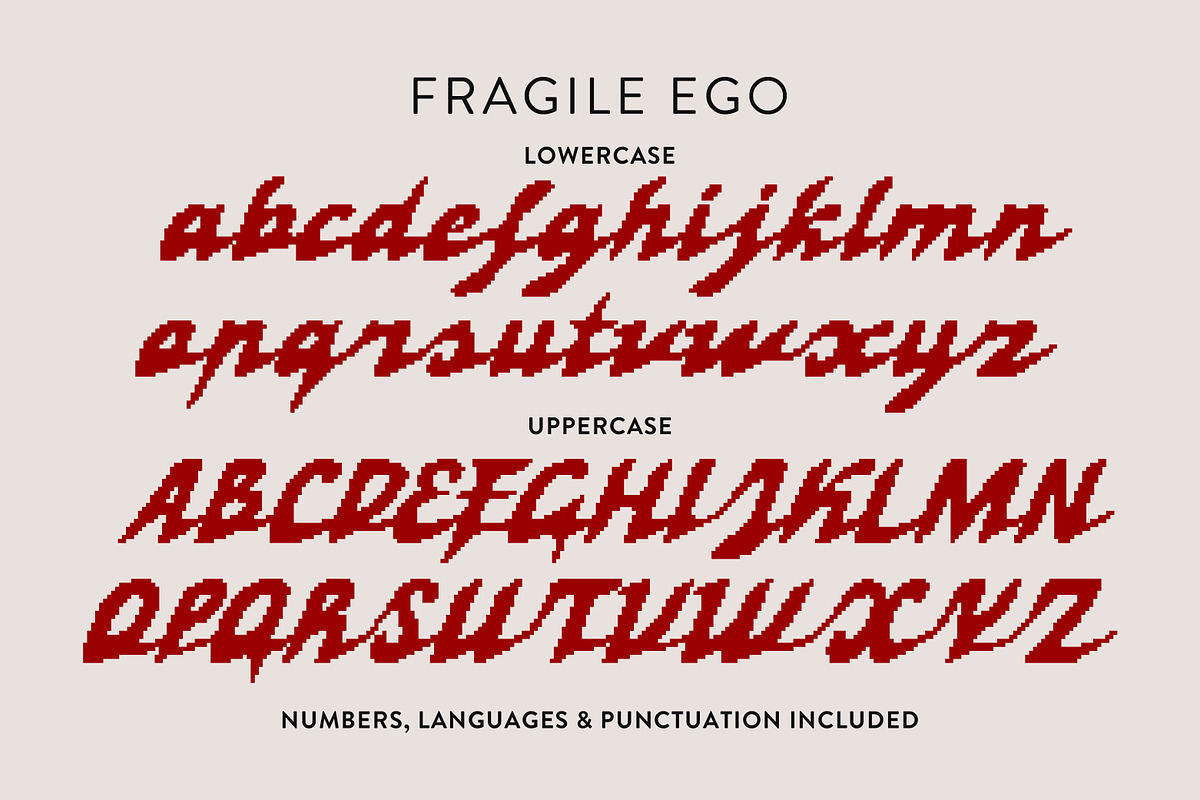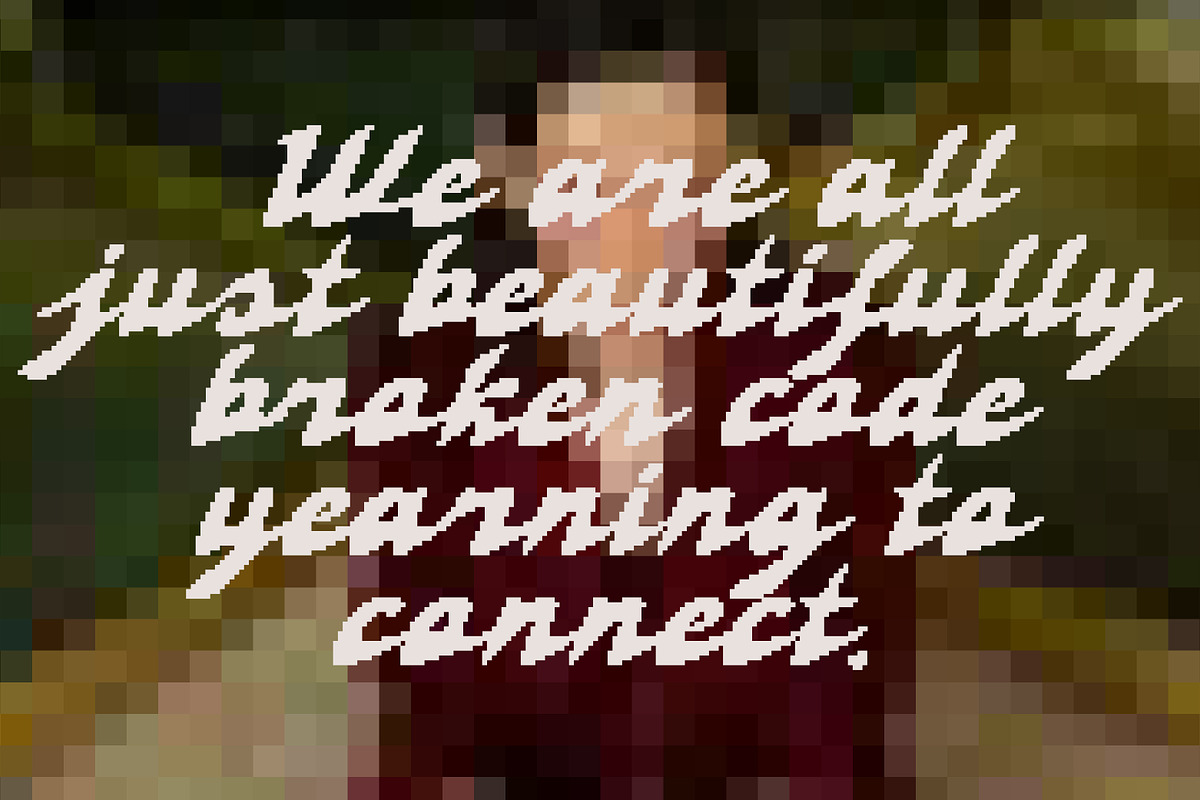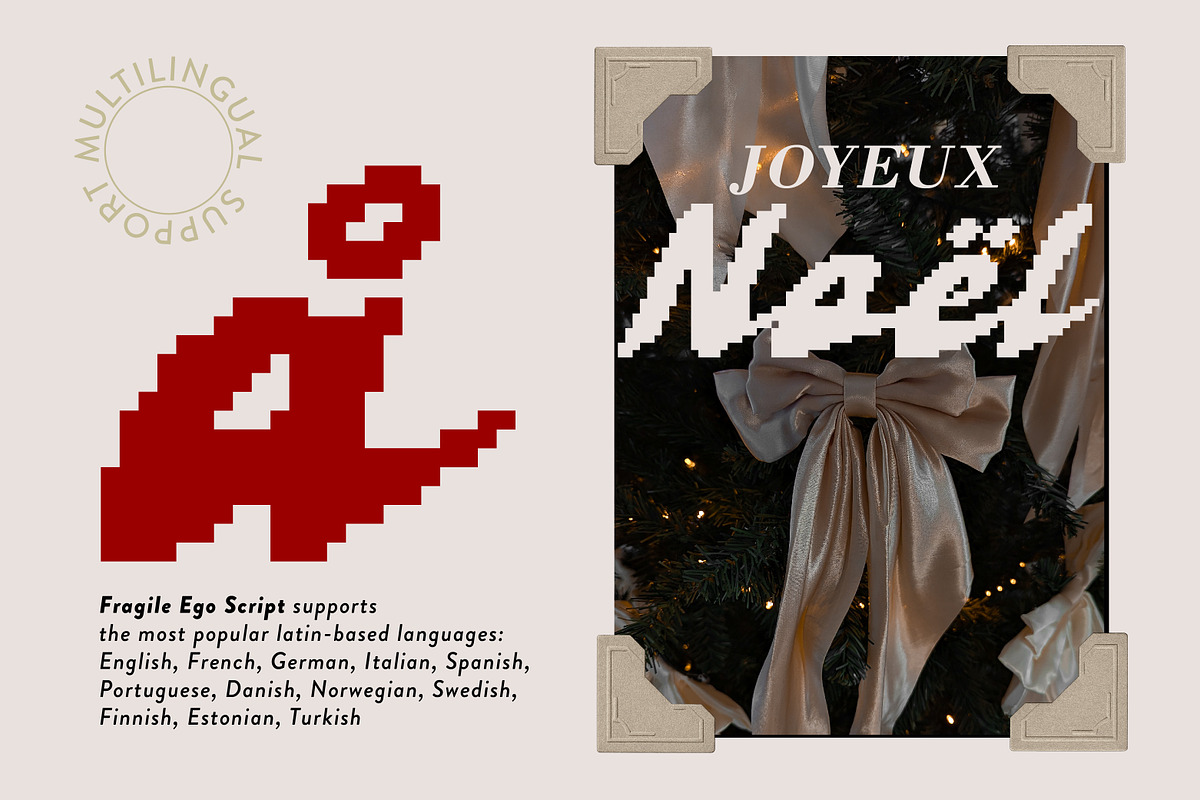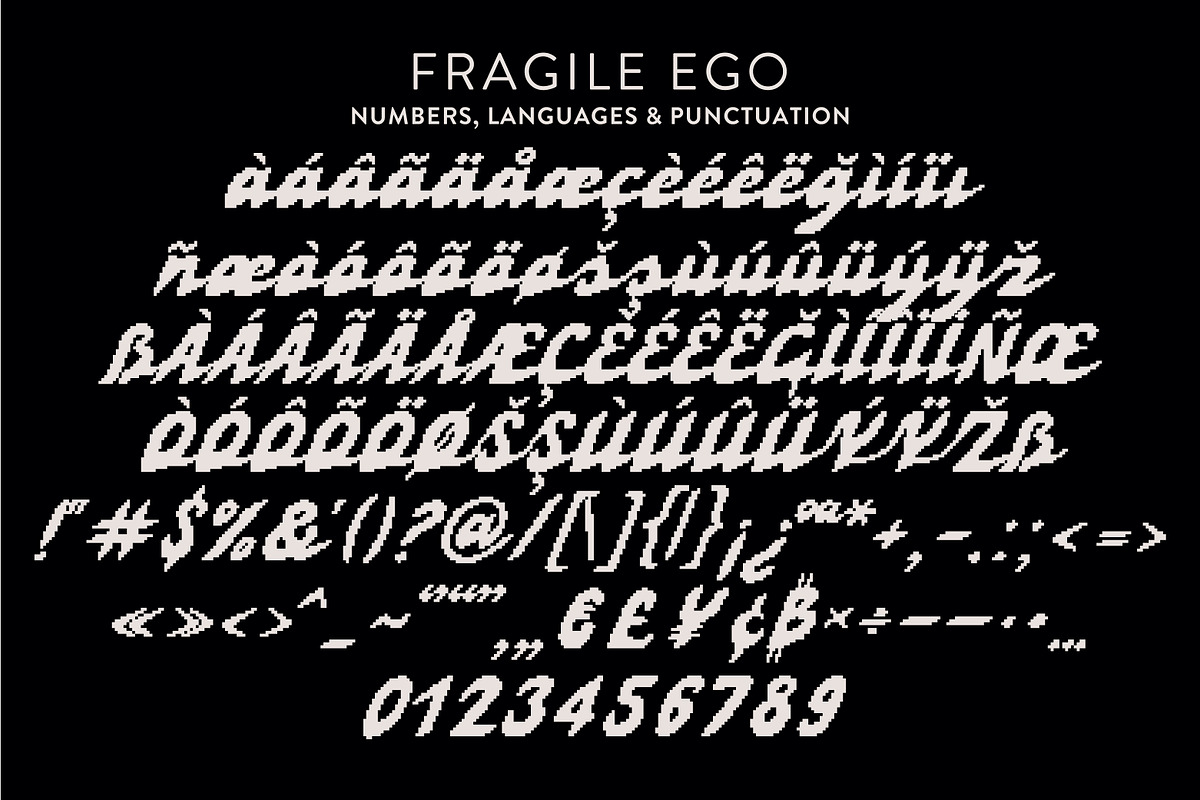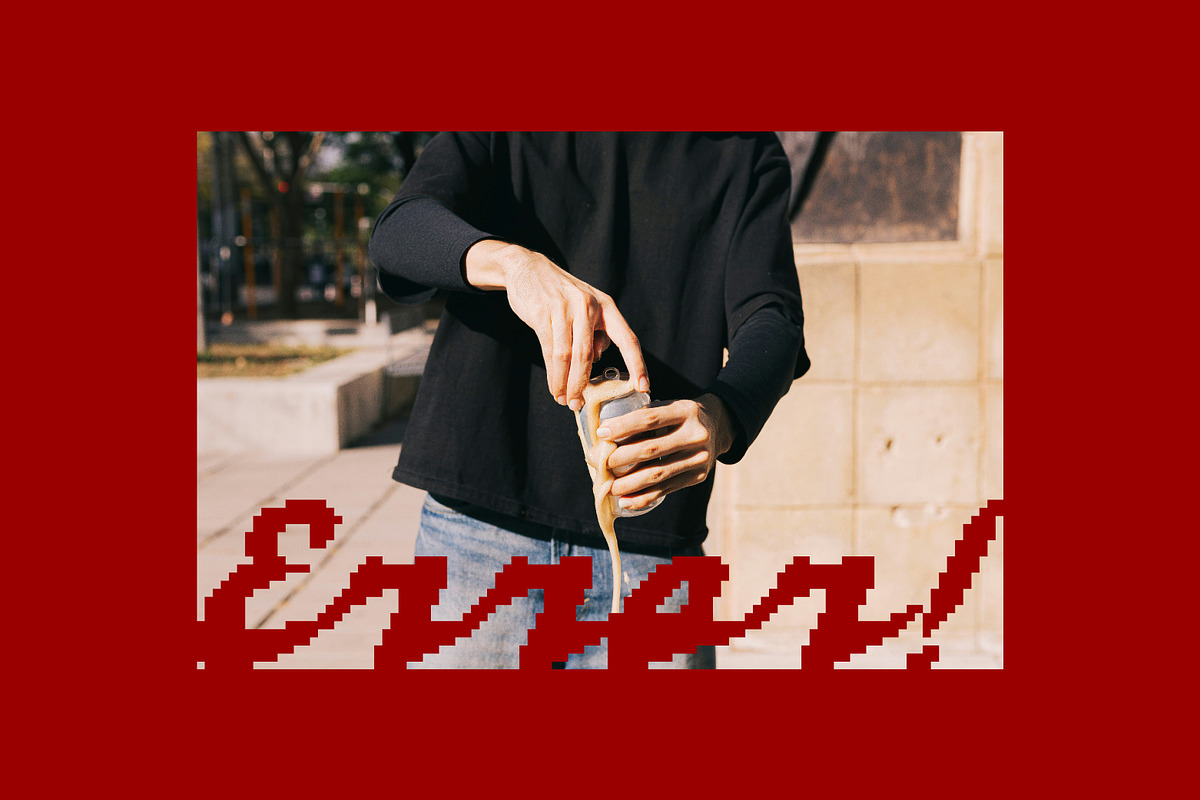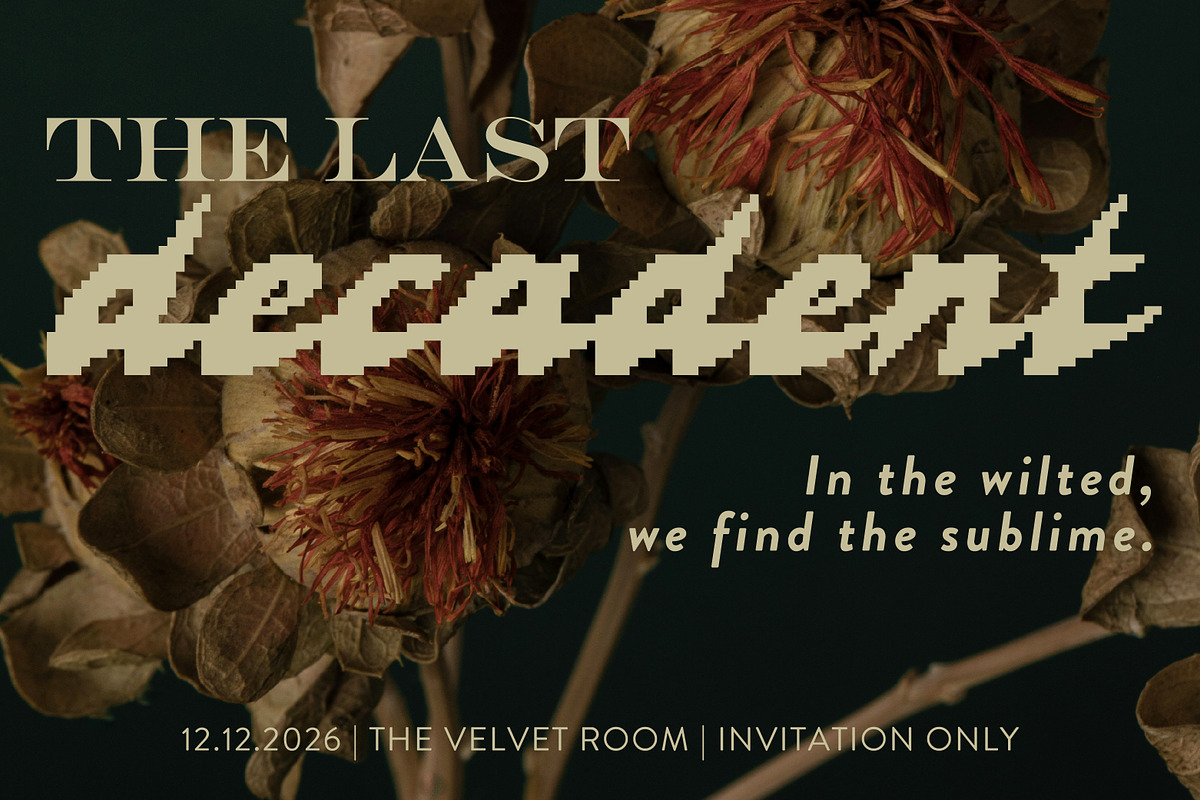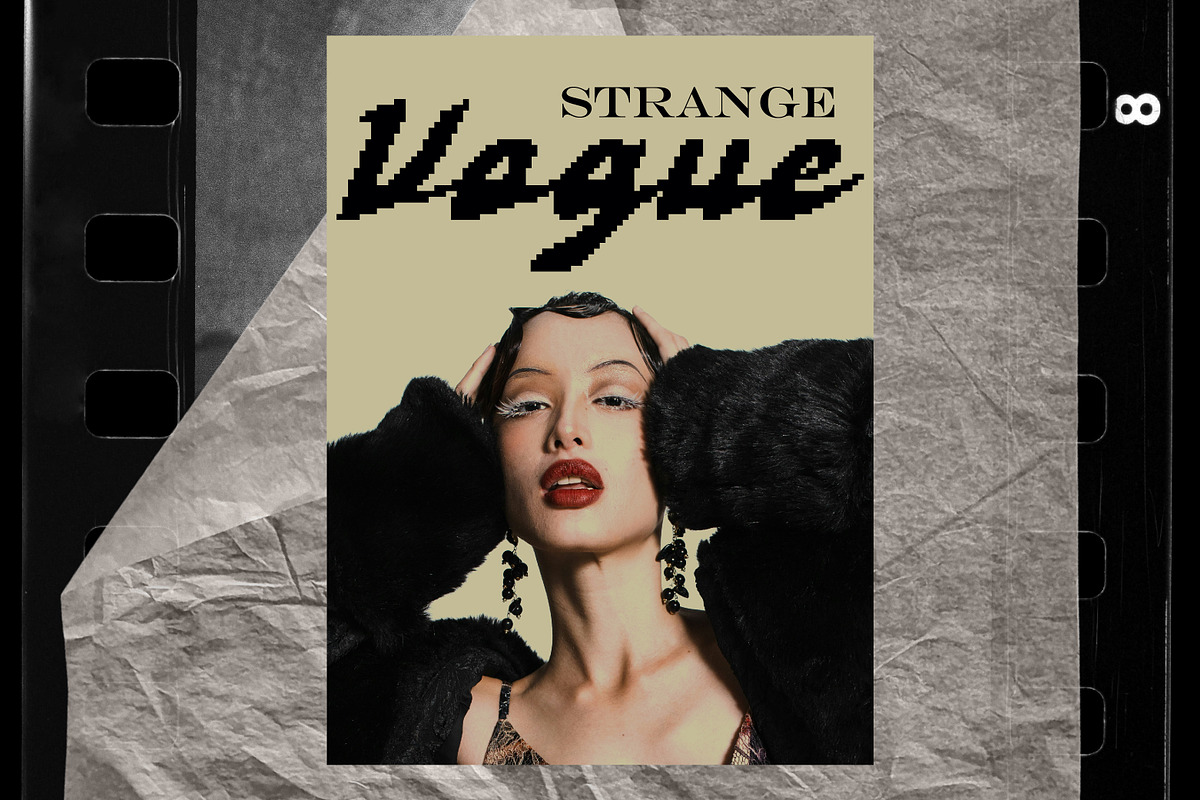
Fragile Ego Pixel Art Glitch Script
Meet Fragile Ego, pixel-art script font that embodies the beautiful tension between digital decay and delicate humanity. Its glitched, connected letters are perfect for creating striking posters, immersive album art, and branding that demands a second look. Designed for the bold creator, it effortlessly bridges nostalgic 8-bit aesthetics with modern, emotional design, making it an ideal choice for projects that need to be both visually arresting and deeply resonant. Its unique pixel charm also makes it a stunning choice for modern cross-stitch patterns and unconventional holiday designs that break the mold.
Fragile Ego supports the most popular latin-based languages, you can check the symbol you need by typing a couple of words in the font preview box.